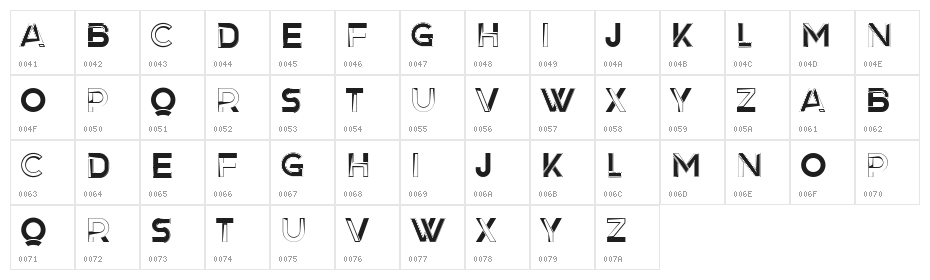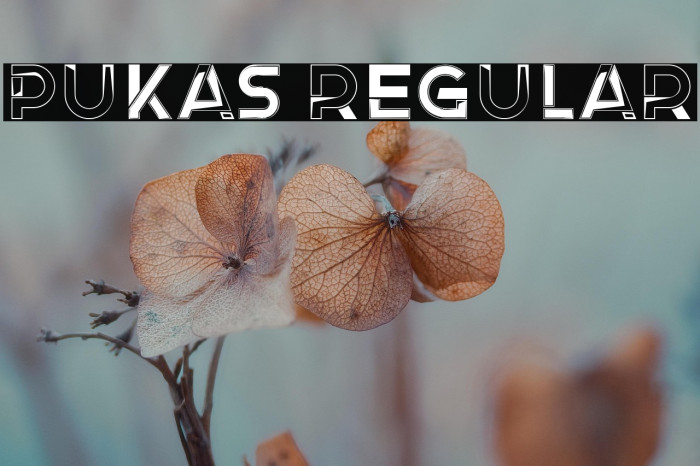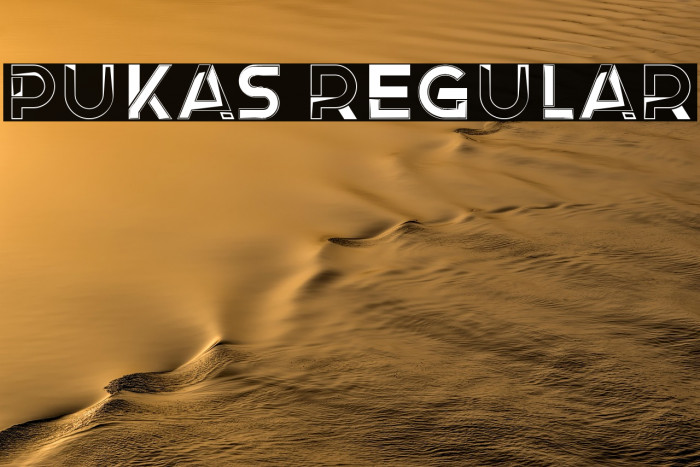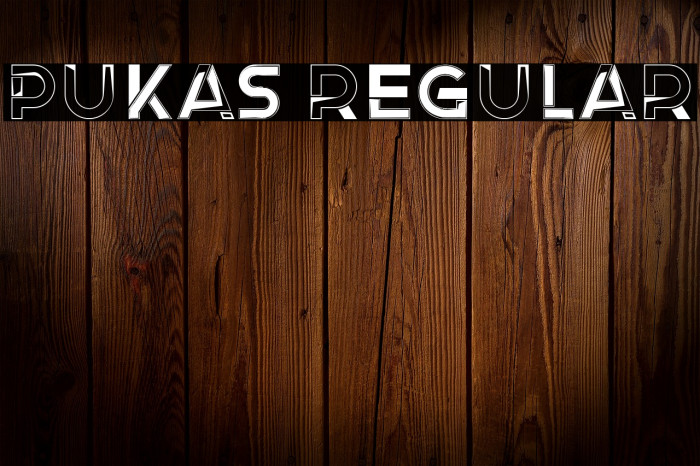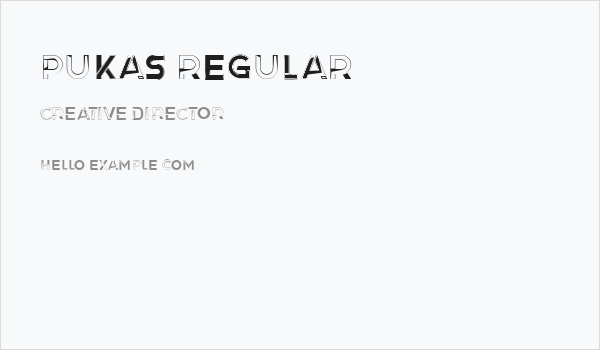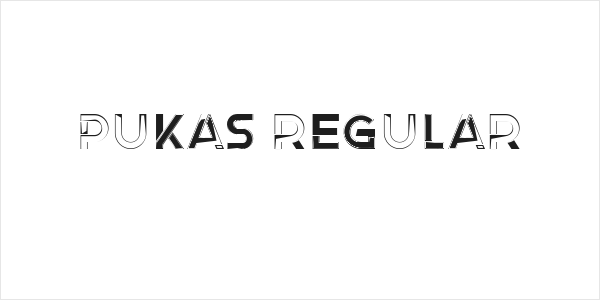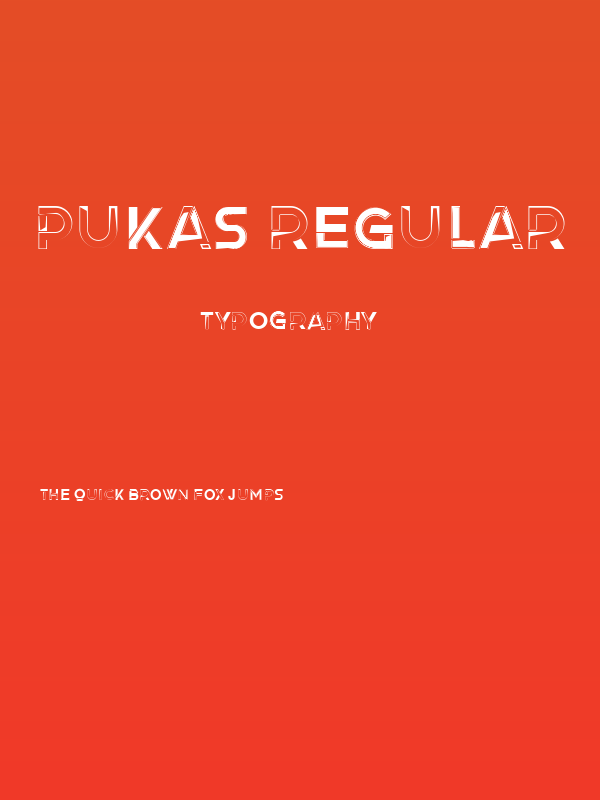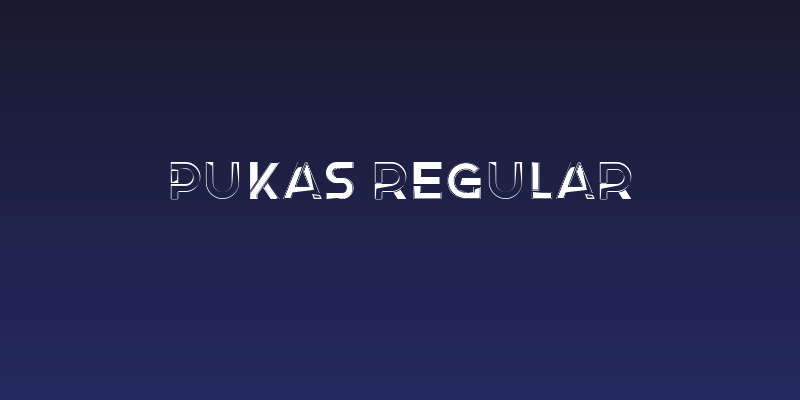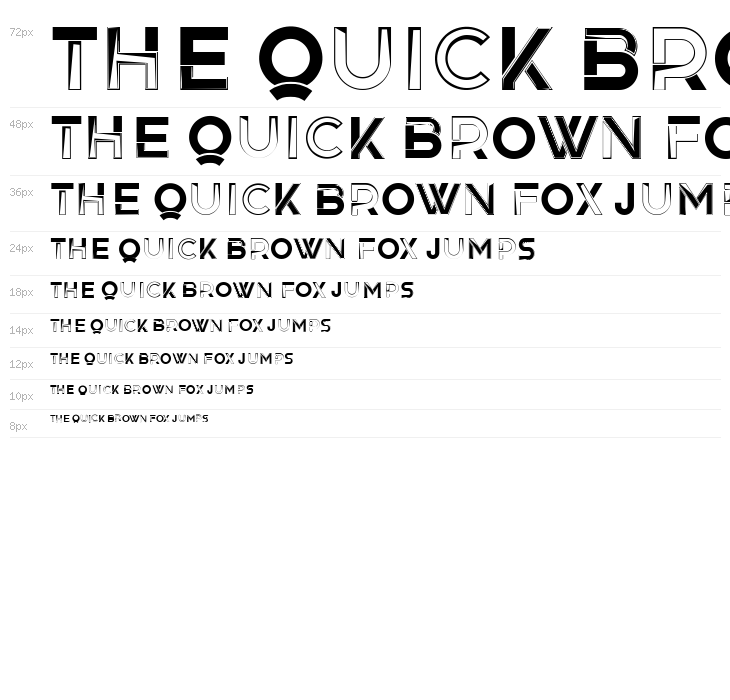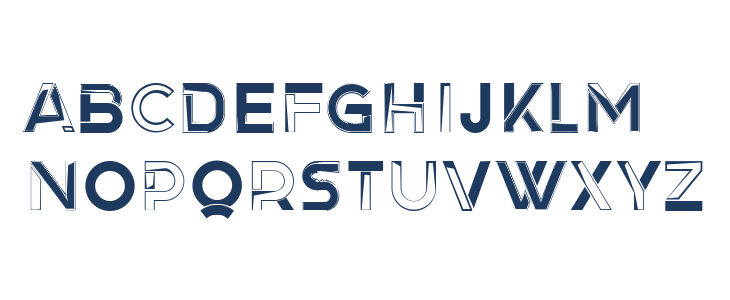
Pukas Regular Font
Pukas Regular Description
This font features a bold and modern design with a unique blend of geometric shapes and clean lines. Each character is crafted with a distinct style, incorporating both solid and outlined elements that create a striking visual contrast. The uppercase letters exhibit a strong presence with their thick strokes and angular forms, while the lowercase letters maintain a consistent aesthetic that complements the overall design. The numbers and special characters follow the same stylistic approach, ensuring a cohesive look across all glyphs. This font is ideal for projects that require a contemporary and eye-catching typeface.